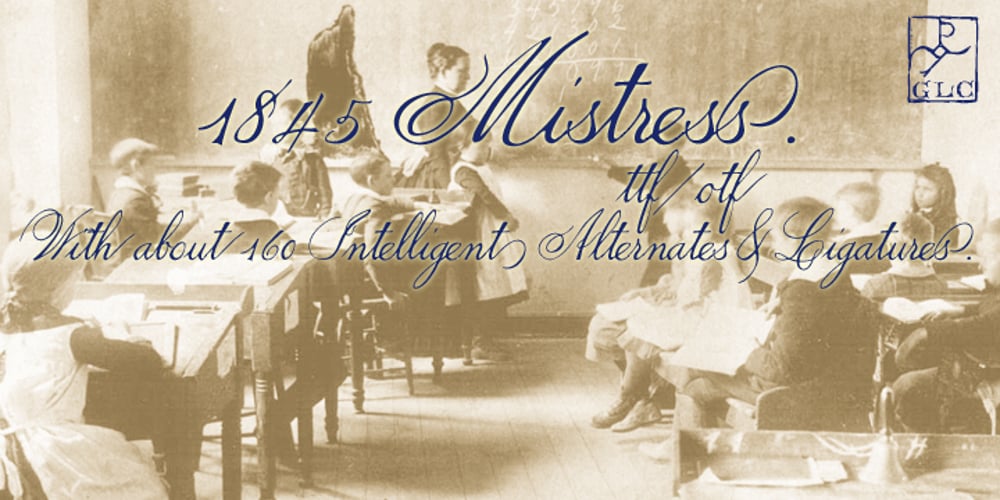
1845 Mistress
1845 Mistress font
1845 Mistress Font Family was designed by published by GLC. 1845 Mistress contains 1 styles and family package options. This font was inspired by Spencer’s patterns, particularly the elegant varieties called “Ladies’ Hand” in some handbooks. Intelligent OTF ligatures and alternates (about 160) are included in the font, giving a closer appearance to realistic handwriting.